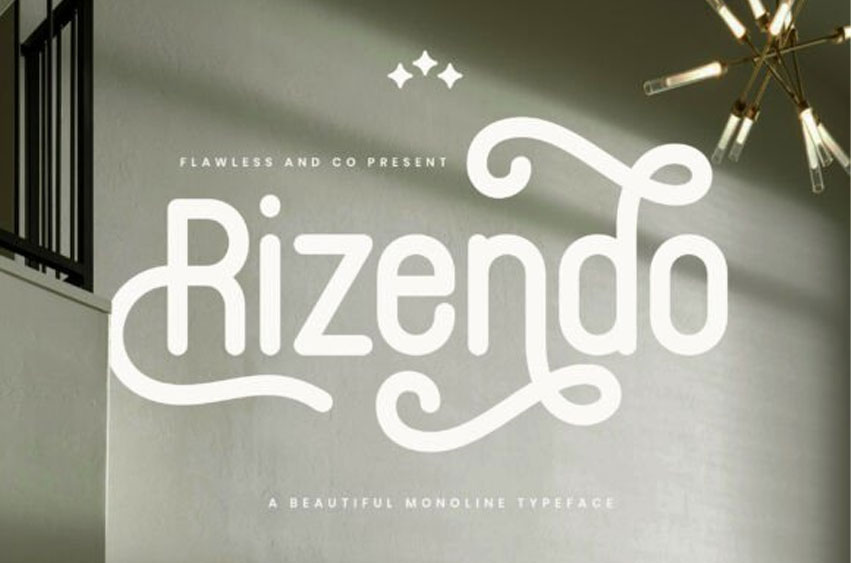
Rizendo Font is a charming and expressive monoline typeface designed to add character and elegance to your design work. With its rounded structure and flowing stylistic alternates, RIZENDO strikes the perfect balance between modern minimalism and handcrafted personality. Perfectly suited for branding, packaging, logos, lifestyle blogs, and stylish display compositions, RIZENDO brings a soft, welcoming feel that stands out in any creative project.
Rizendo Font Preview